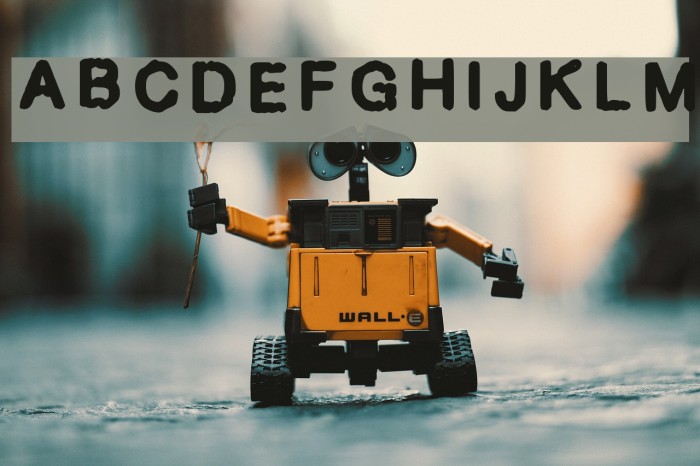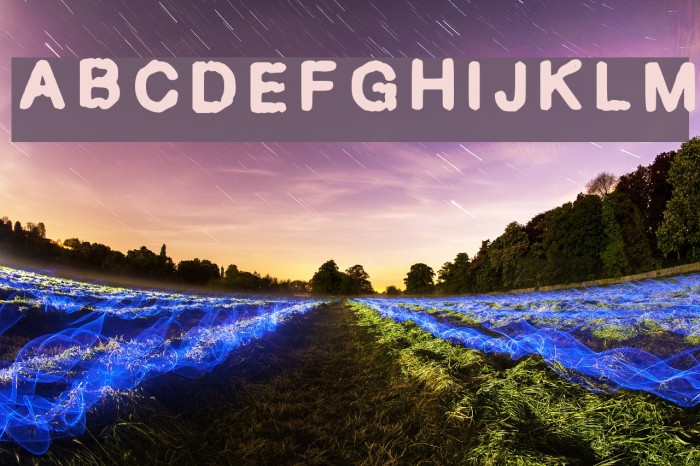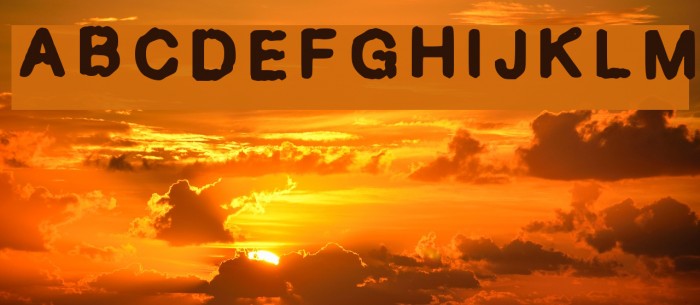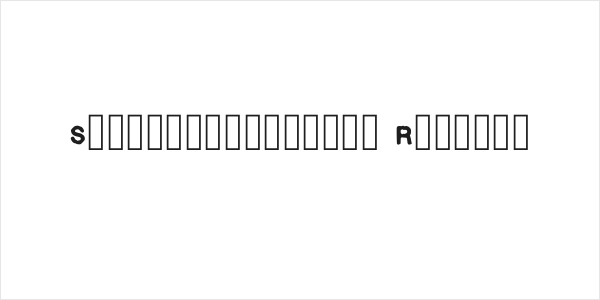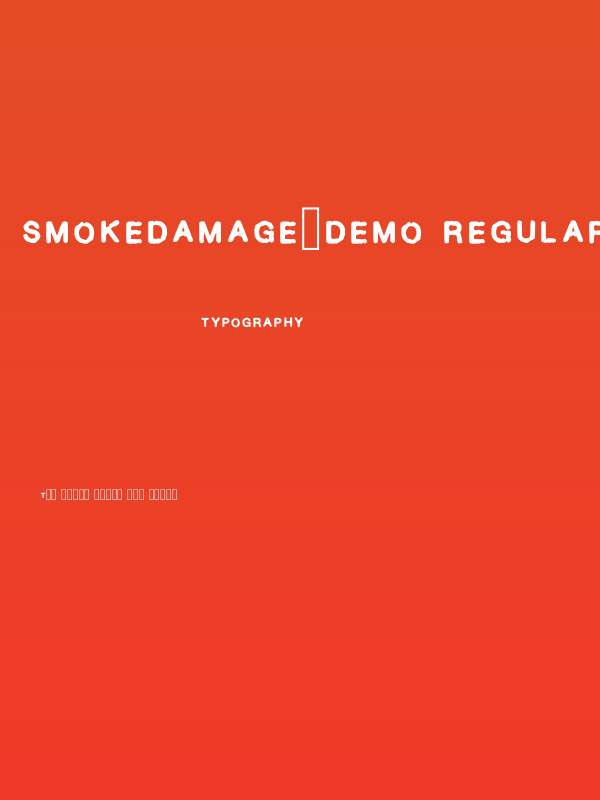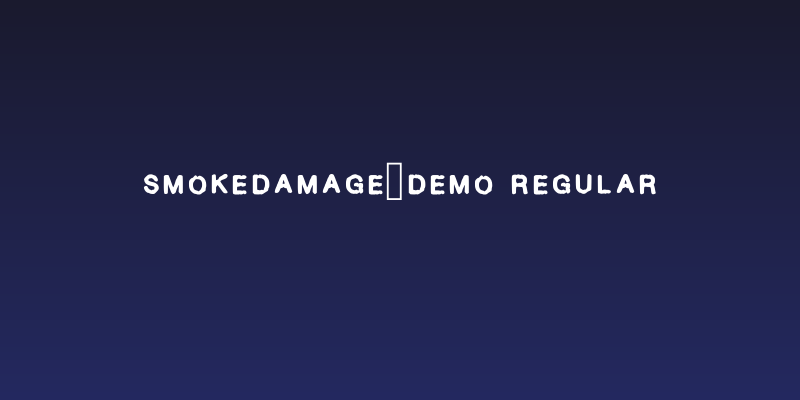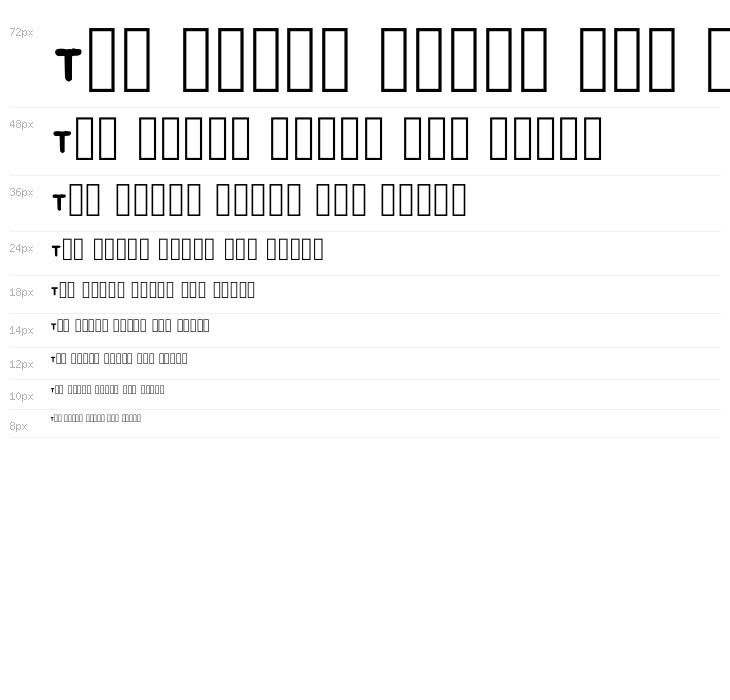
Smokedamage_demo Regular Font
Smokedamage_demo Regular Description
This font features a rugged, distressed appearance, reminiscent of letters that have been weathered by smoke or fire. The uppercase letters have a bold, impactful presence, with irregular edges that give them a unique, textured look. The characters are slightly uneven, adding to the rustic and raw aesthetic. This style is particularly effective in conveying a sense of vintage or industrial design, making it suitable for projects that require a bold statement. The font's distinctive appearance can draw attention and add character to any design.
Overall StyleVintage
Proposed ProjectsIdeal for vintage posters, industrial-themed designs, album covers, and branding that requires a bold, edgy look.